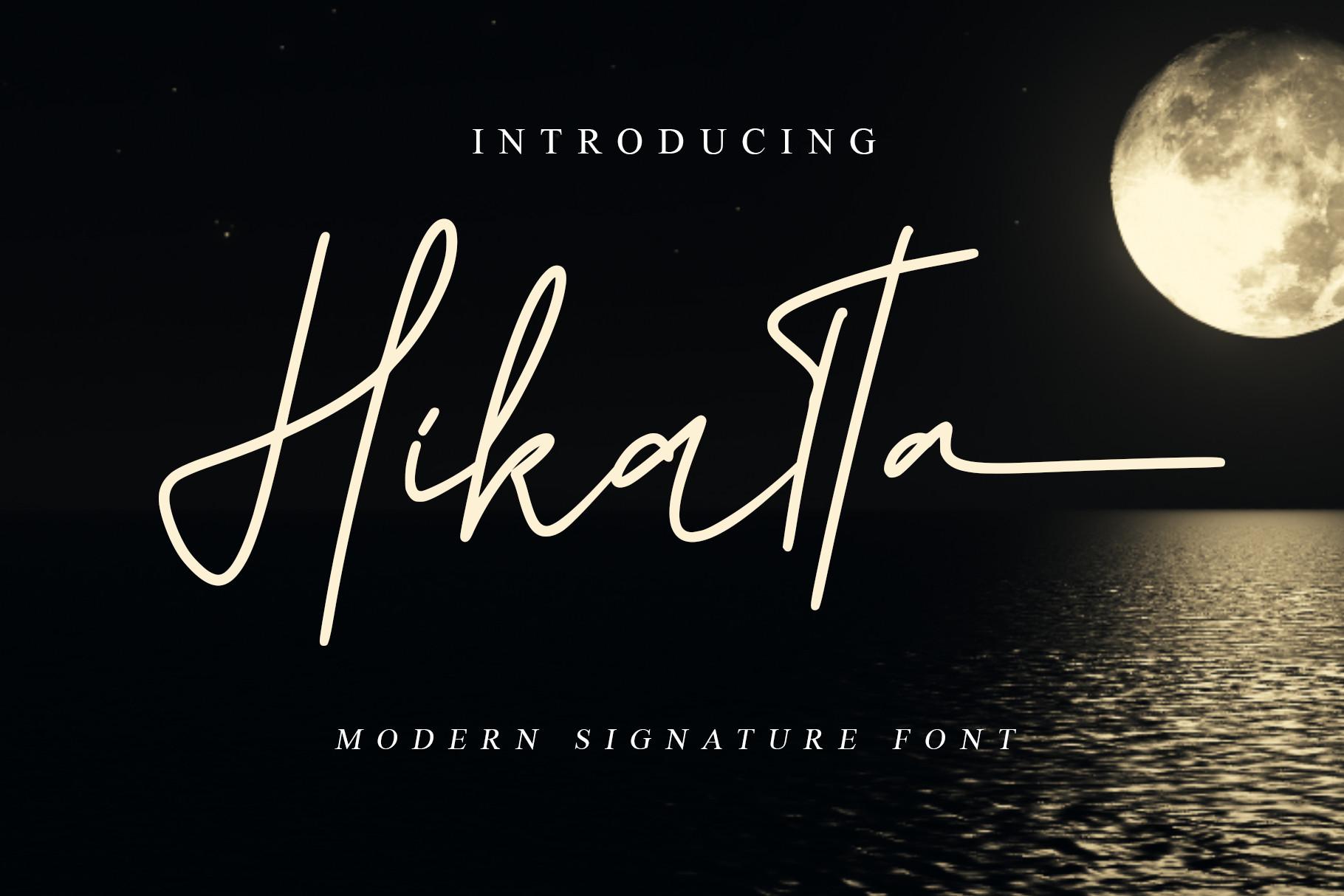
Hikatta Font Description
Hikatta is a beautiful and fashionable handwritten font with a unique feel and a stunning impact. It will add a luxury spark to any design project that you wish to create! This font is PUA encoded which means you can access all of the glyphs and swashes with ease!